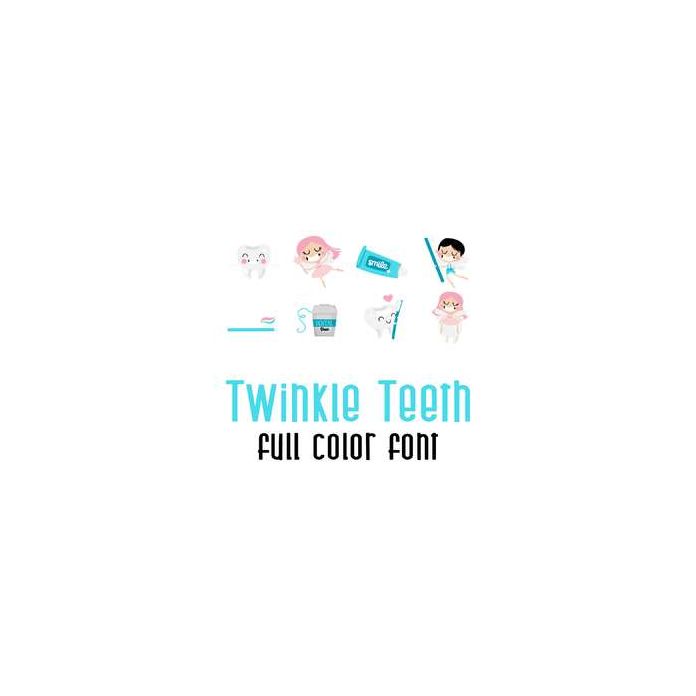
This adorable full color doodlebat font features adorable tooth fairies, teeth and all things related to teeth. Perfect for cards, crafts, gifts, decor, scrap book pages, planner stickers and more!